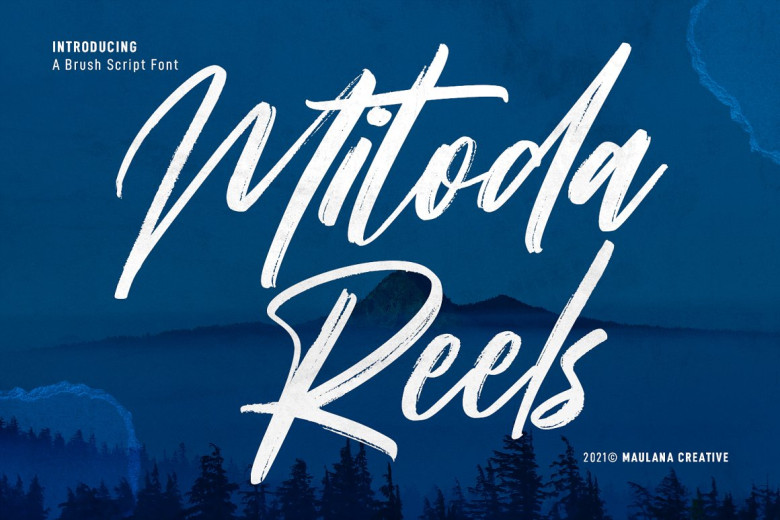
Mitoda Reels Font
Mitoda Reels Font is an elegant Brush script font. Featuring an expressive rough brush stroke and playful character, there are also some ligatures, lowercase alternatives, and subtle ligatures for an added creative edge. Mitoda Reels font supports over 100 languages worldwide!
Mitoda reels will help you craft stunning works. Use this font in logos, social media posts, movie and book titles, short texts or long texts letters for long texts letters – it makes an excellent secondary font choice when pairing with sans-serif or serif fonts. Mitoda will bring beauty into any work of art!
Mitoda Reels Brush Script Font